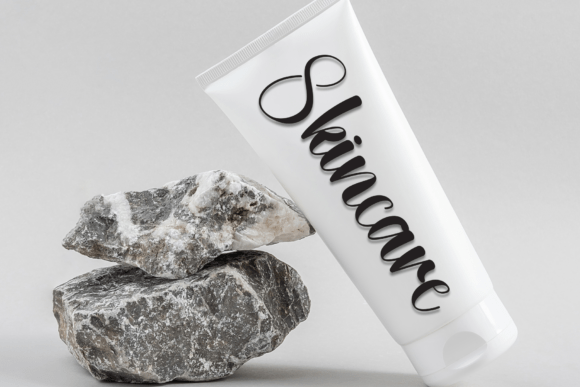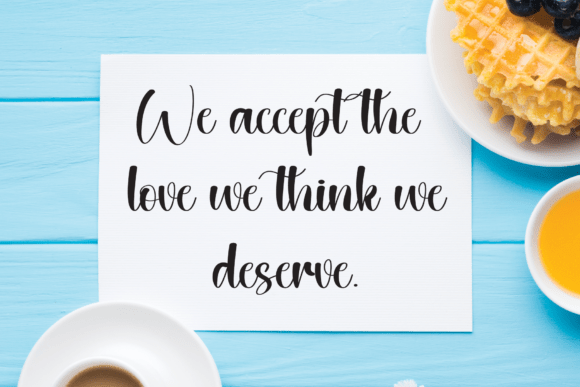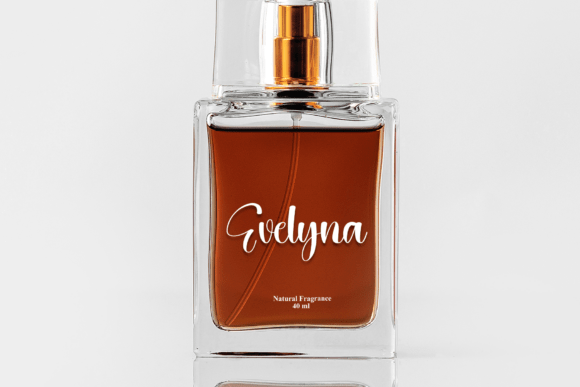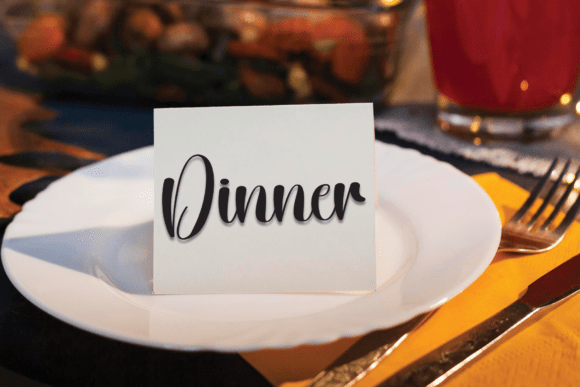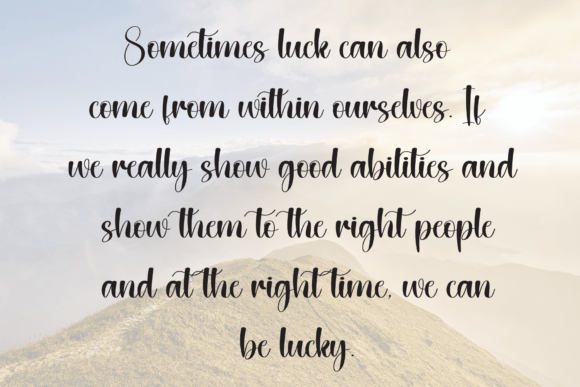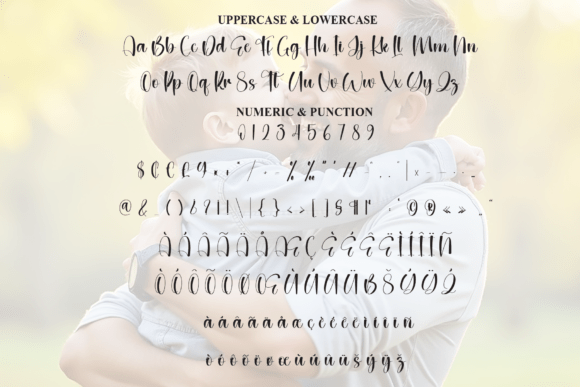
The Charm of Fatherday Font: Elevating Your Designs with Elegance
Have you ever been in the middle of a design project, and suddenly, you’re stuck on finding the perfect font? I recall a particularly stressful experience while working on a wedding invitation project. My client wanted a font that exuded elegance, romance, and a touch of casual charm. After hours of scouring through font libraries, I stumbled upon Fatherday Font, and it was love at first sight! ✨
With its smooth curves, natural flow, and slightly casual style, Fatherday Font brings a personal, elegant touch to any design. It’s as if the font was written with care, making it perfect for wedding invitations, personal branding, greeting cards, and lifestyle blog graphics.
An Honest Review of Fatherday Font
- ✨ Elegant and sophisticated, yet approachable and casual
- ✅ Smooth curves and natural flow that make it a joy to read
- 💕 Perfect for romantic and modern aesthetics, with a versatility that shines in various design contexts
- 🎨 Great for designs that require a personal touch, such as wedding invitations, greeting cards, and lifestyle blog graphics
While Fatherday Font is an excellent choice for many design projects, there are a few things to keep in mind: 🤔
- ⚠️ Limited availability of stylistic alternates, which might limit its use in certain design contexts
- ⚠️ May not be the best choice for very formal or traditional designs, as it has a slightly casual feel
The Story Behind Fatherday Font
Fatherday Font was designed with the intention of creating a elegant, yet approachable script font. The designer aimed to craft a font that would feel like it was written with care, perfect for designs that require a personal touch.
Q: What is Fatherday Font best suited for?
A: Fatherday Font is ideal for wedding invitations, personal branding, greeting cards, and lifestyle blog graphics.